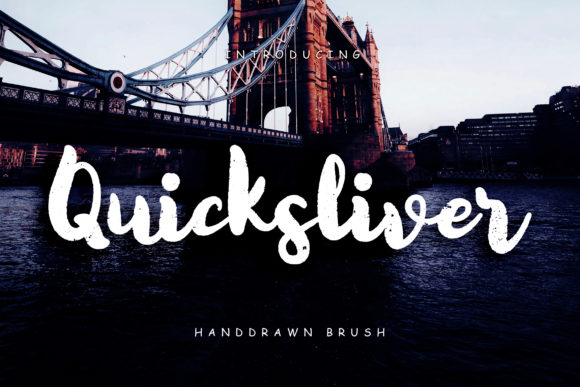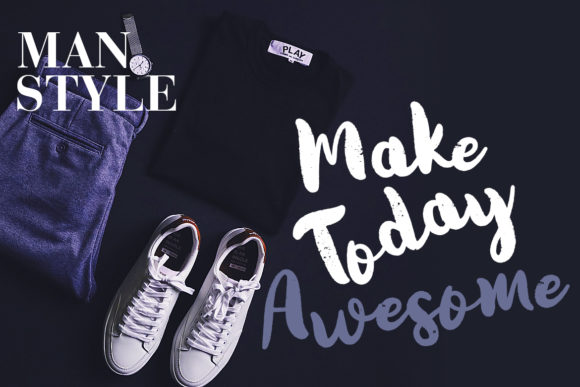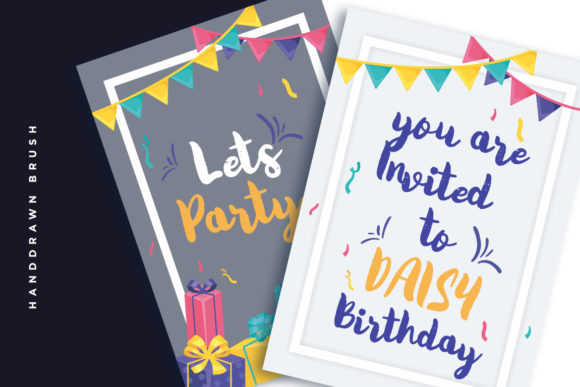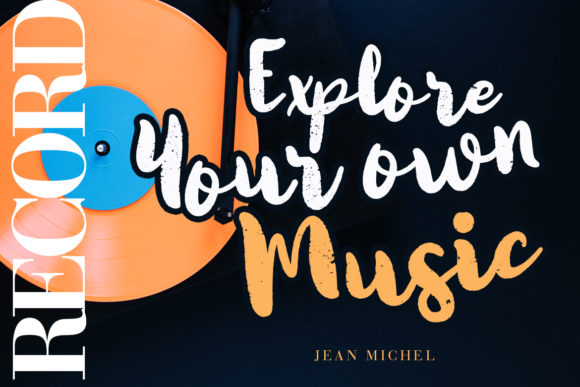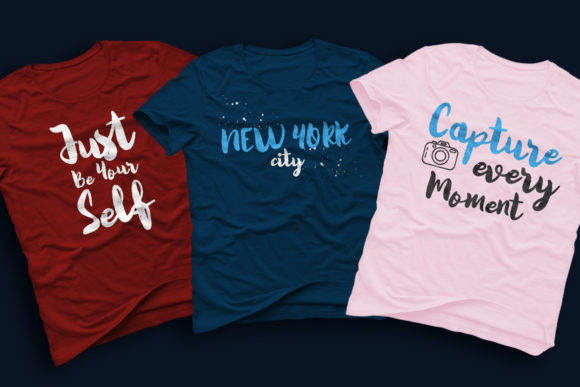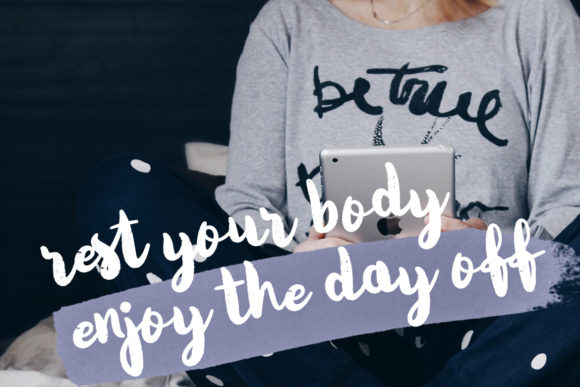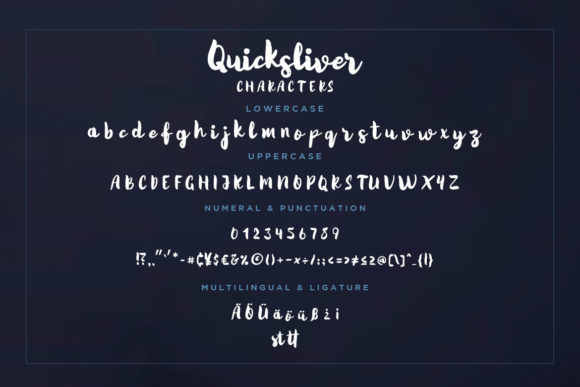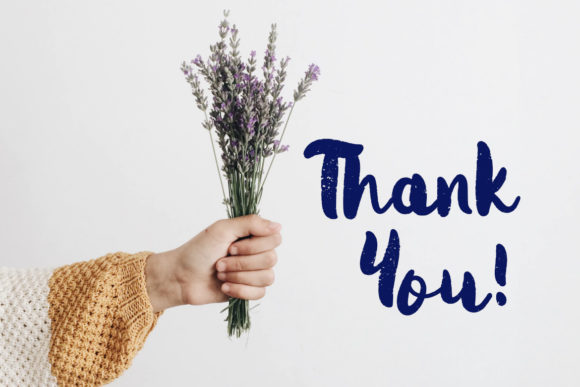
Quicksliver Font
About Quicksliver Font
Quicksliver is a carefully hand-drawn script with a unique style. Use it to take your next crafting project to the next level.